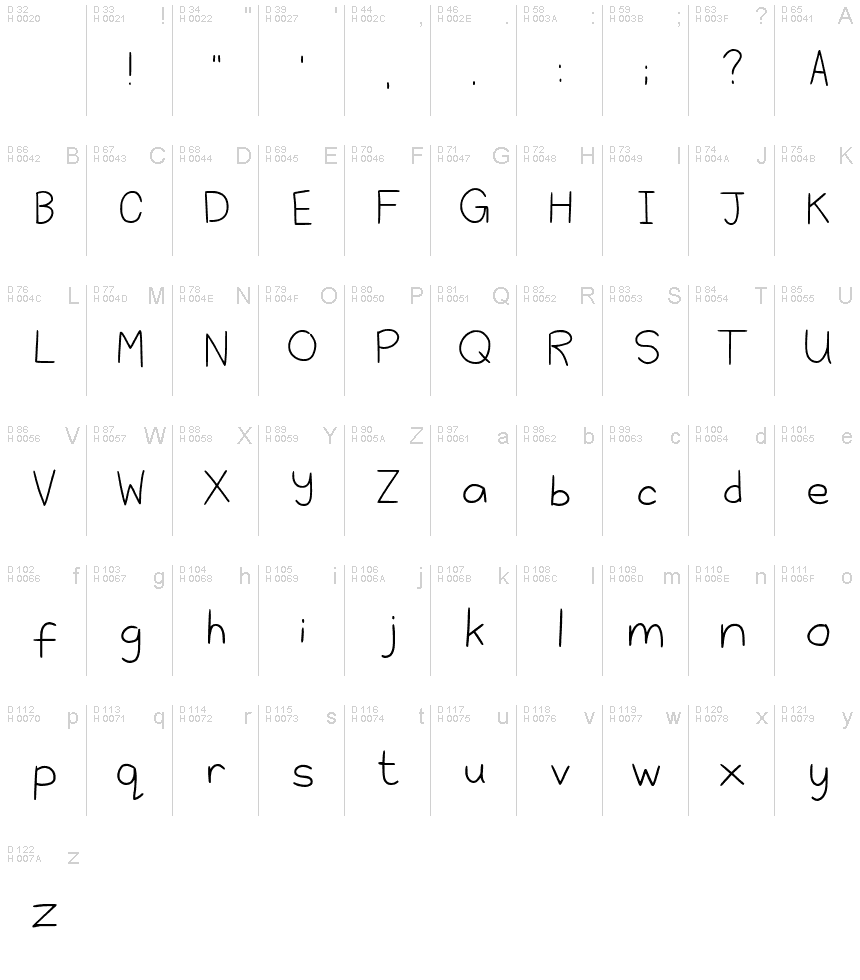
Sammy Regular
Sammy, the delightful semi-light handwritten font designed by samumorry, is the perfect choice for all your creative projects. With its charming curves and elegant lines, this font adds a touch of whimsy to any design. Whether you're creating invitations for a whimsical summer wedding or designing a logo for a boutique café, Sammy's playful yet sophisticated style will make your project stand out. Its semi-light weight makes it easy to read while still maintaining its unique character. Don't settle for boring fonts – choose Sammy and let your creativity soar!